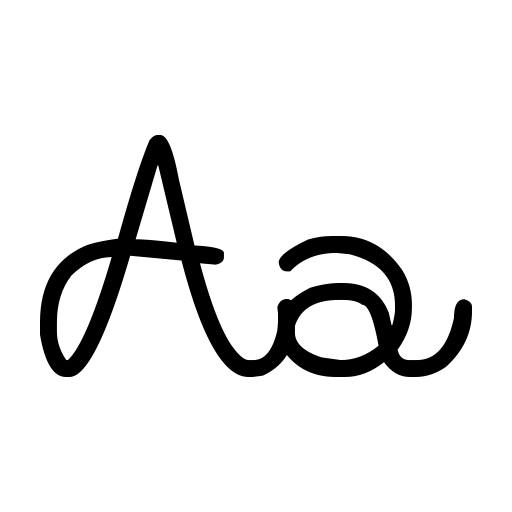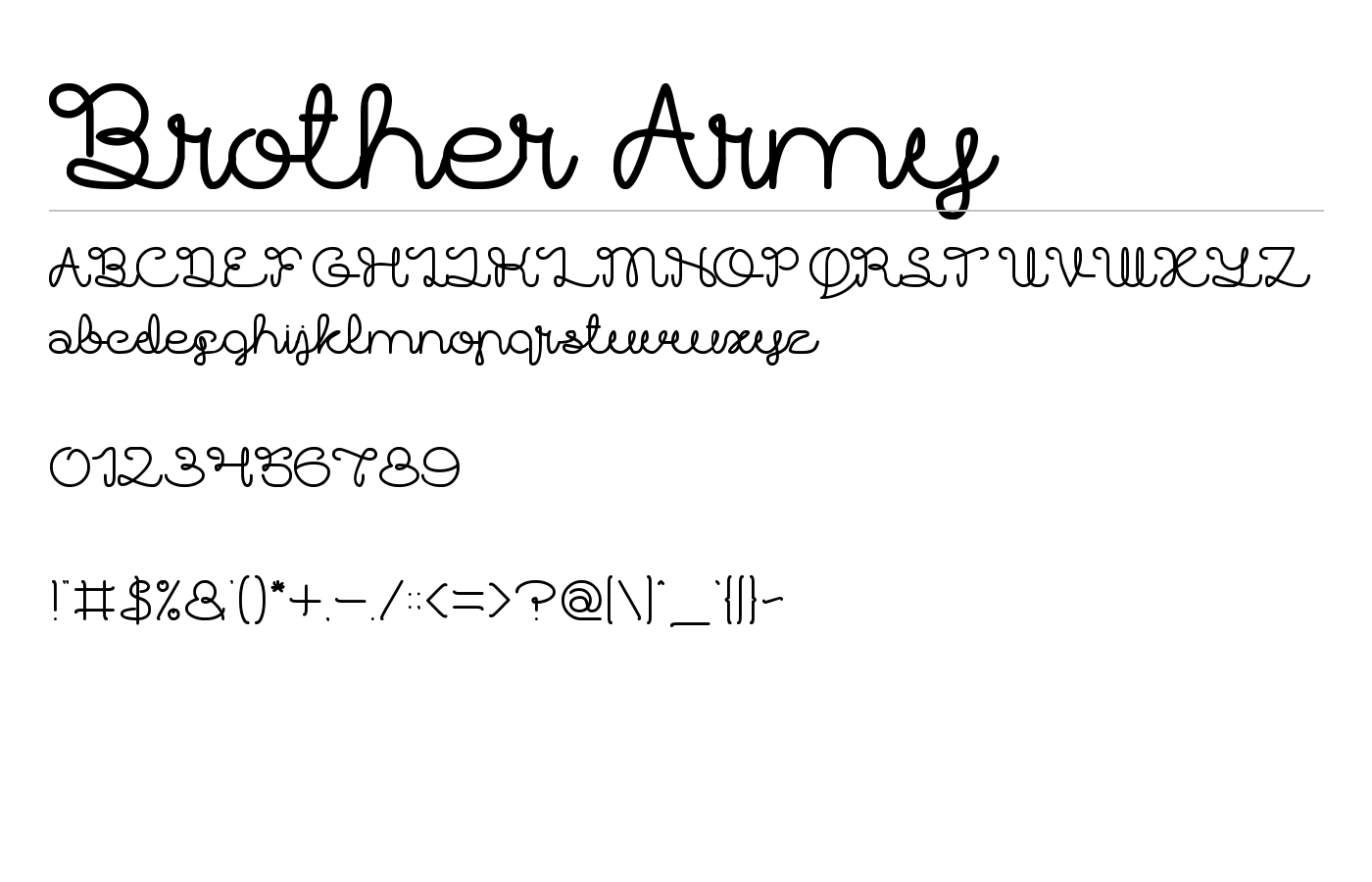
Brother Army is a playful, decorative script font with a hand-drawn feel, featuring light strokes and whimsical loops within a narrow and airy structure. Its quirky, connected letterforms evoke a casual, friendly tone, making it ideal for creative branding, invitations, and fun headlines where a unique, approachable personality is desired. This font shines in projects that want to blend charm with a touch of whimsy while maintaining clear readability.
Brother Army Font
About Brother Army Font